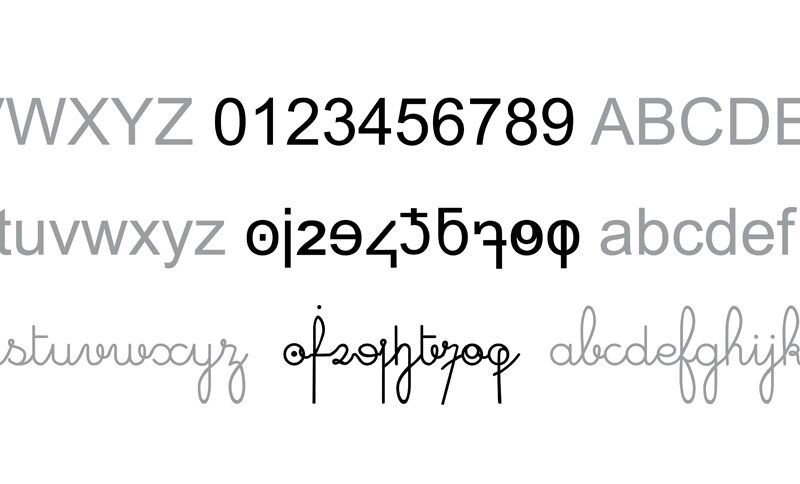
Minuscule Digits by Cédric Dequidt is a free numeral symbol font with an extremely compact graphic profile. Its tiny figures read as dense marks rather than conventional text, with simplified shapes and a deliberately compressed silhouette. The restrained construction gives the set the character of coded notation or miniature labeling.
Designers working on data graphics, technical illustrations, or experimental publishing can use these symbols when numbers need to function as visual details. In game interfaces and digital artwork, the figures can become part of a counter, scale, or diagram instead of serving as ordinary captions.
Creation of lowercase and cursive digits.
This is not a new font; it is a new way to write.